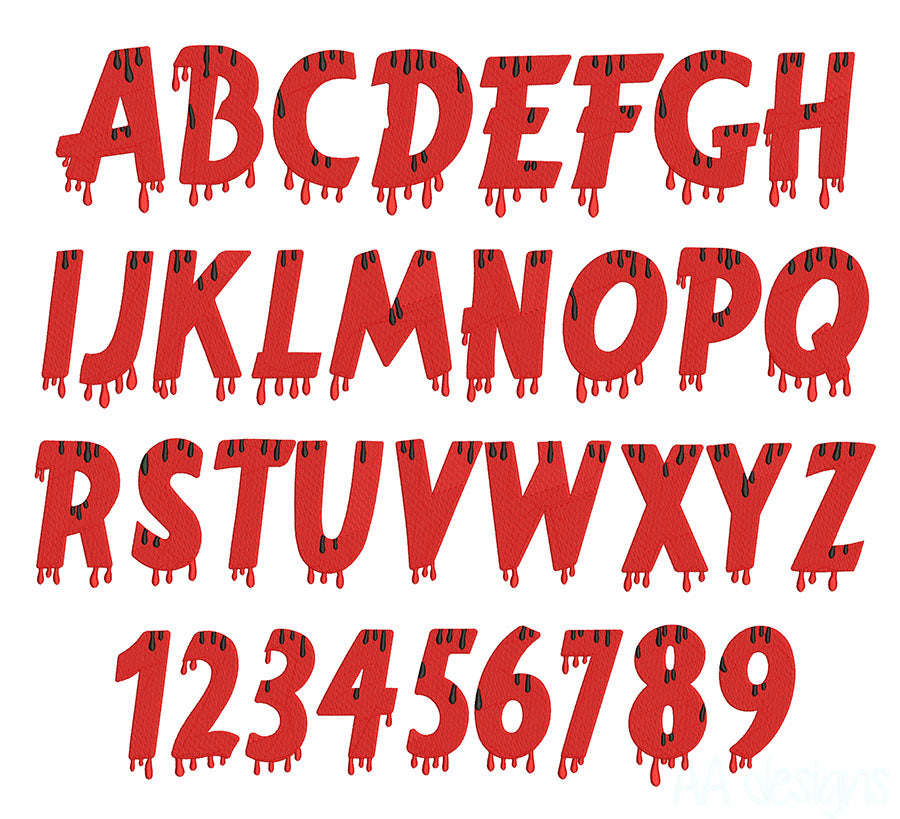
Zombie Embroidery Digital Font for Halloween — a gruesome, undead-inspired embroidery font that brings the zombie apocalypse to life on any fabric. Ragged edges, decayed letterforms, and maximum horror vibes make this the ultimate Halloween font for machine embroidery.
Perfect for costumes, trick-or-treat bags, Halloween apparel, and all your spooky seasonal projects.
- Full alphabet, numbers, and special characters
Great For:
- Halloween costumes and themed apparel
- Trick-or-treat bags and accessories
- Horror-themed merchandise
- Zombie-themed events and parties